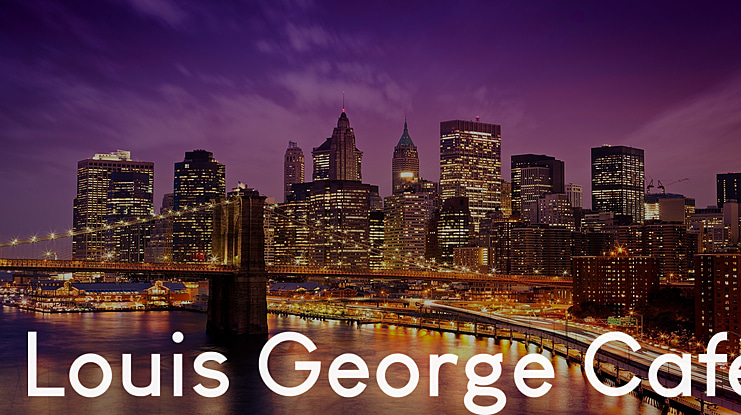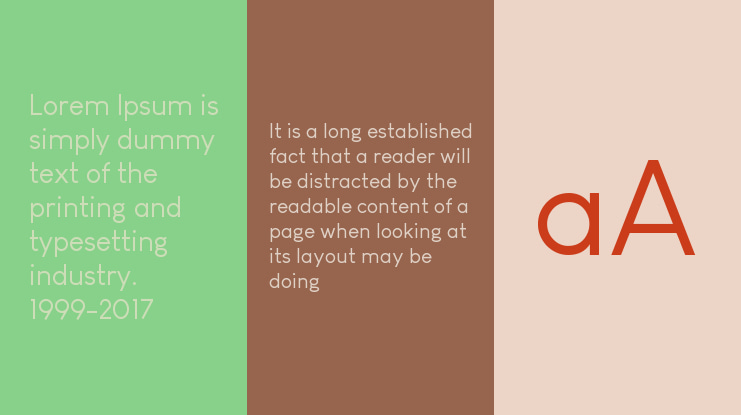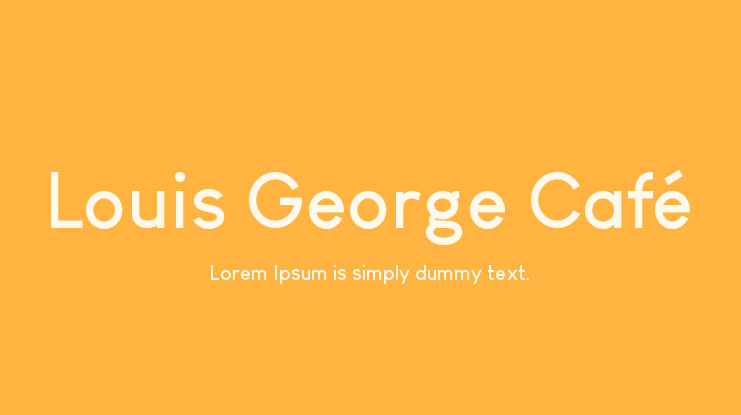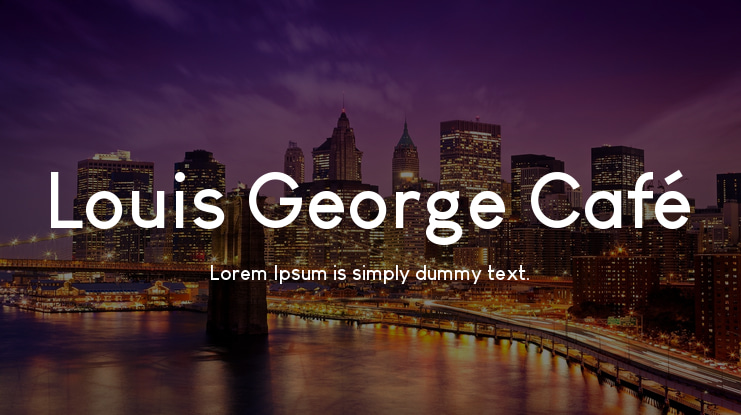
Louis George Café Font Family
This is a Sans serif basic font. It's a professional version which was complicated hand-made and computer-generated graphics, and various revisions. After installing on the computer, you can create posters, web graphics, game graphics, t-shirts, videos, signs, logos and more. These fonts are 100% FREE for both personal and business usages. If you have any question, please feel free to contact me.